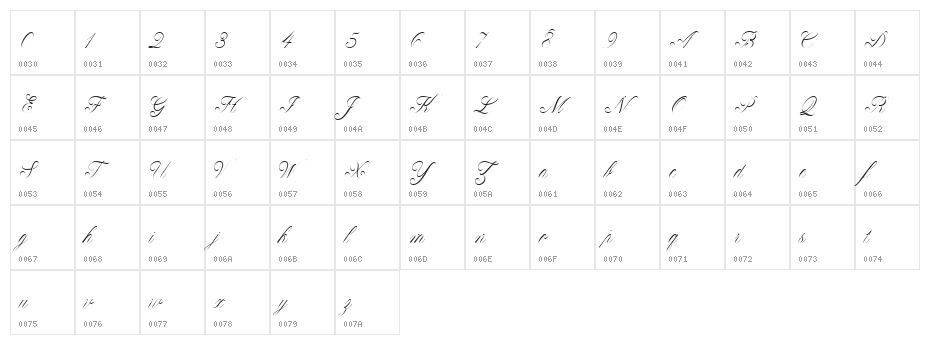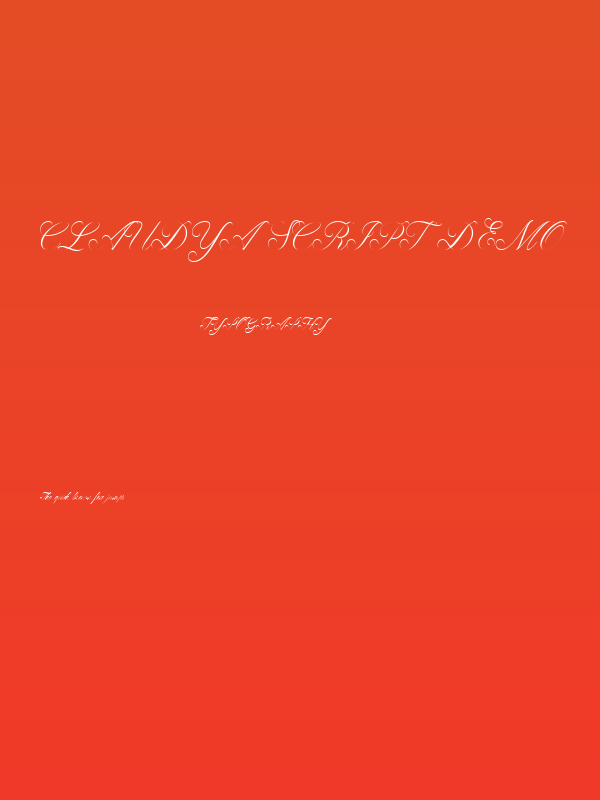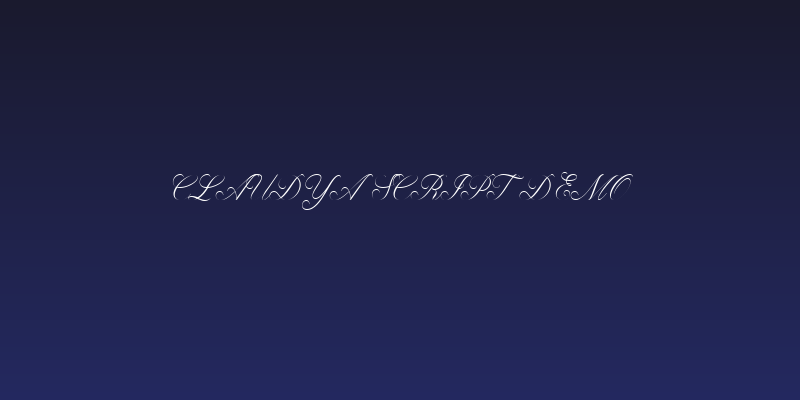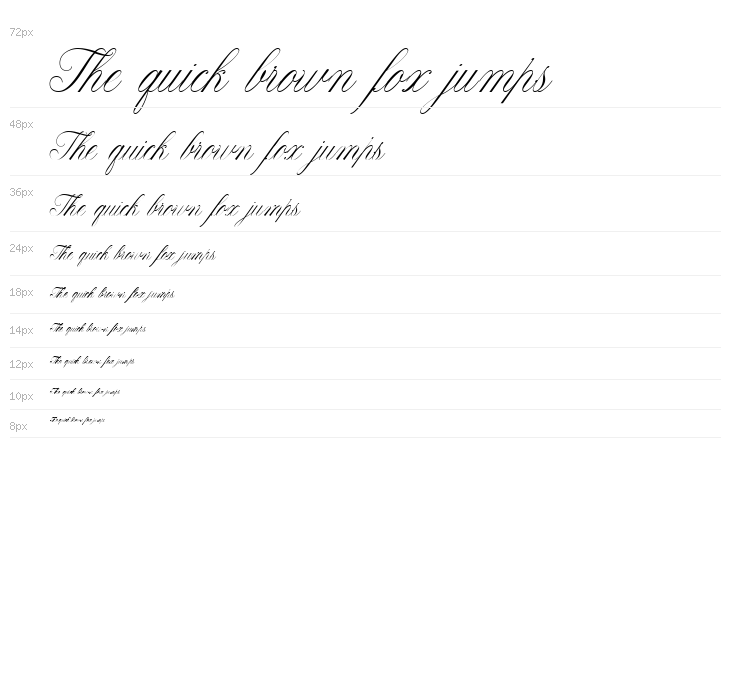
Claudya Script Demo Font
Claudya Script Demo Description
This elegant script font features beautifully flowing, cursive letters with intricate swashes and flourishes. The uppercase letters are particularly ornate, with extended loops and curves that add a touch of sophistication and grace. The lowercase letters maintain a consistent style, offering a seamless connection between characters, which enhances readability while preserving the decorative nature. The numerals are equally stylish, matching the overall aesthetic with their delicate curves. This font exudes a sense of luxury and refinement, making it ideal for formal invitations, branding, and high-end product packaging.
| Proposed Projects | Ideal for wedding invitations, luxury branding, elegant packaging, and formal event materials. |